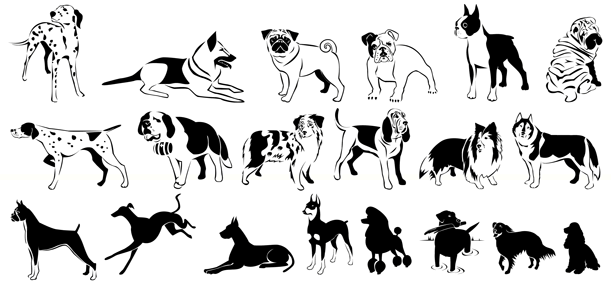
HomeFont BrosDingbatWoof! Dingbat Woof! FacebookXPinterestWhatsApp 1 of 1 About Woof! Woof! A font full of the best-loved dogs plus one mutt. Distinct lines convey the character and heart of each breed.  DOWNLOAD ON FONT BROSThis font is sold and delivered by Font Bros. Font Canyon may earn a commission if you buy through this link. People also explored Paradise Font Butter and Coffee Font Galifex Font Fingerprint Font La Rouge Font Strong Magic Font Fredam Theory Font Always Better Font Handwriting Font 323 0 TagsWoof!Woof! Font Previous articleSuarezNext articleRough Patch LEAVE A REPLY Cancel reply Comment: Please enter your comment! Name:* Please enter your name here Email:* You have entered an incorrect email address! Please enter your email address here Website: Save my name, email, and website in this browser for the next time I comment. Personal Use Free Jabirah Personal Use Free Read more about this font Foo Personal Use Free Read more about this font Happy Camping Personal Use Free Read more about this font The Relapse Personal Use Free Read more about this font BLOG How to Cut Any Font on Cricut: Convert a Font to SVG (Free) Turn any font into a clean SVG so it cuts crisp on Cricut - a quick 3-step workflow using a free font-to-SVG tool. Transform Your Website: Elevate Your Typography with 7 Best Web Font Generators To increase your work productivity, choose the most readable fonts. Elegant Wedding Invitation Fonts – Handwritten & Script Fonts